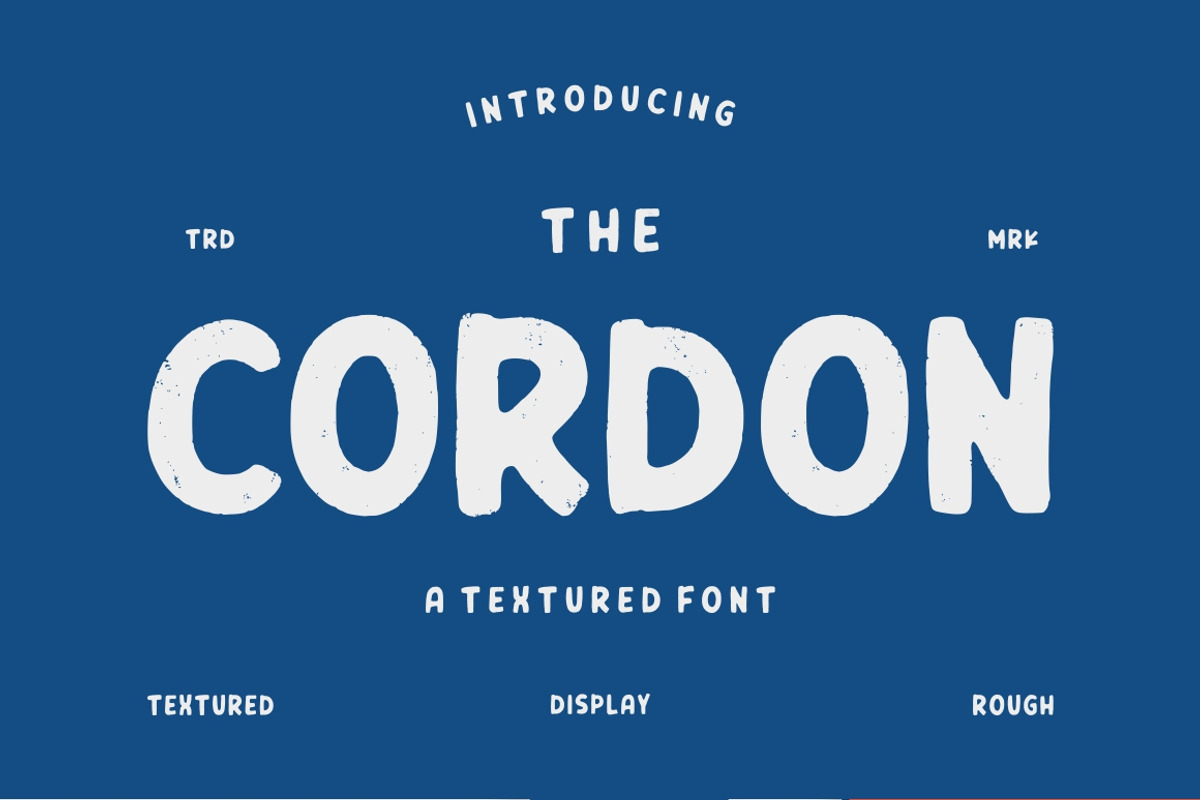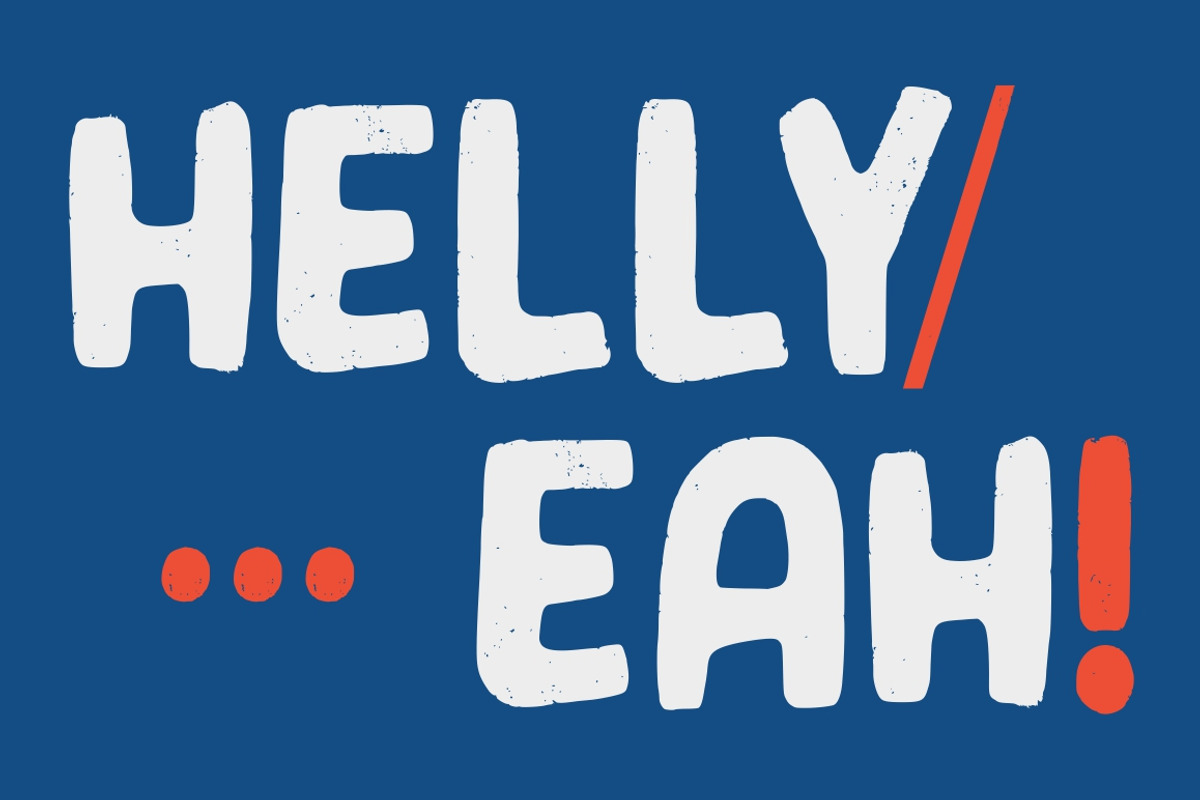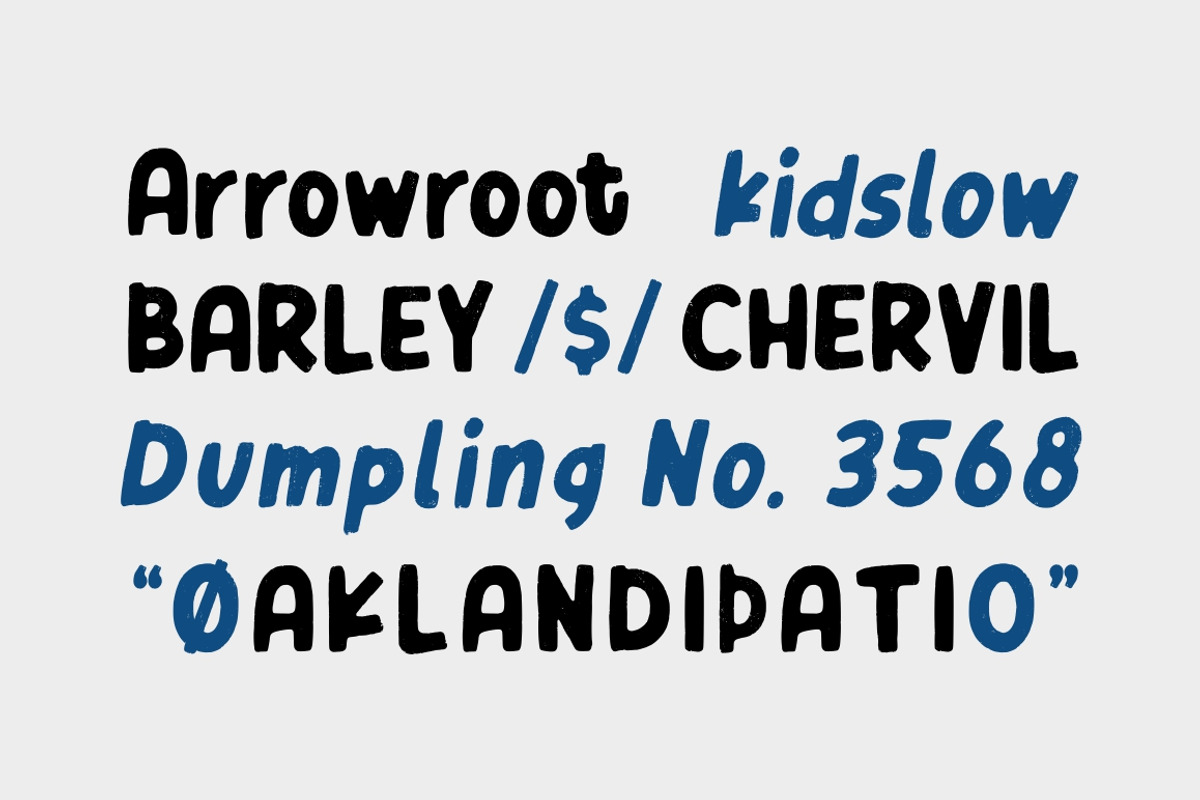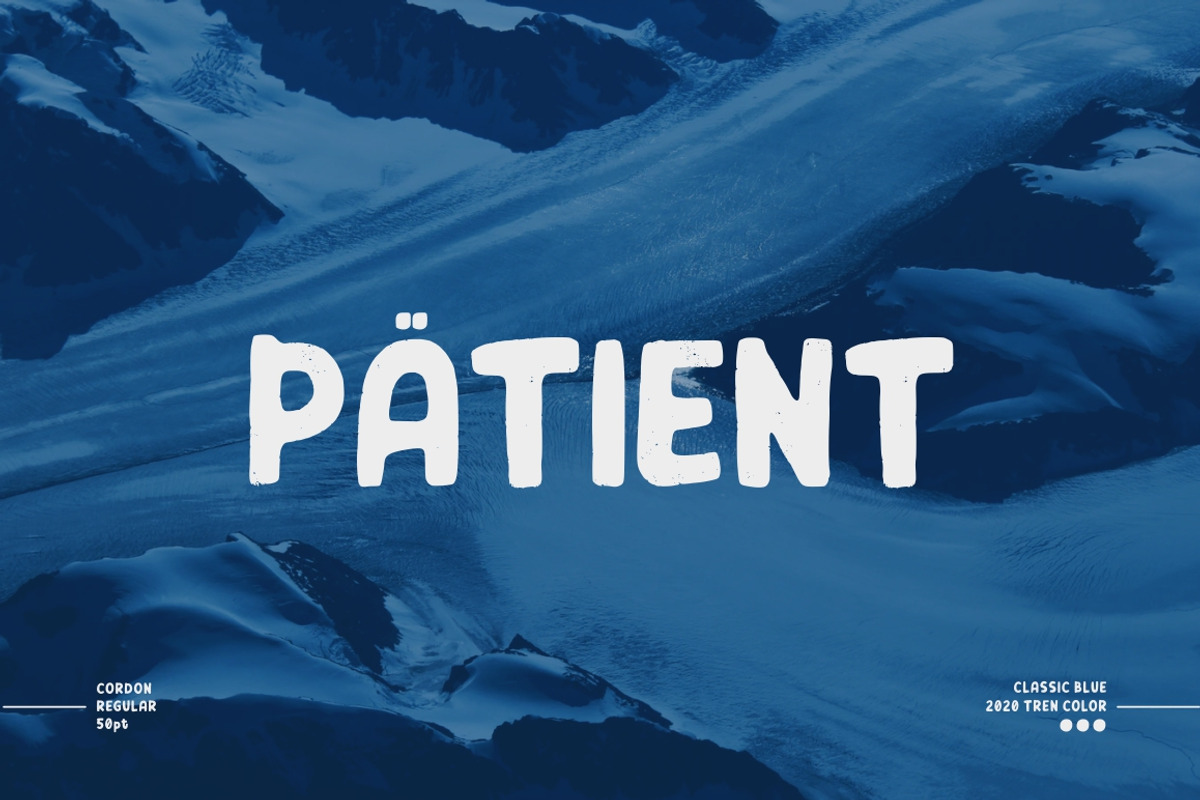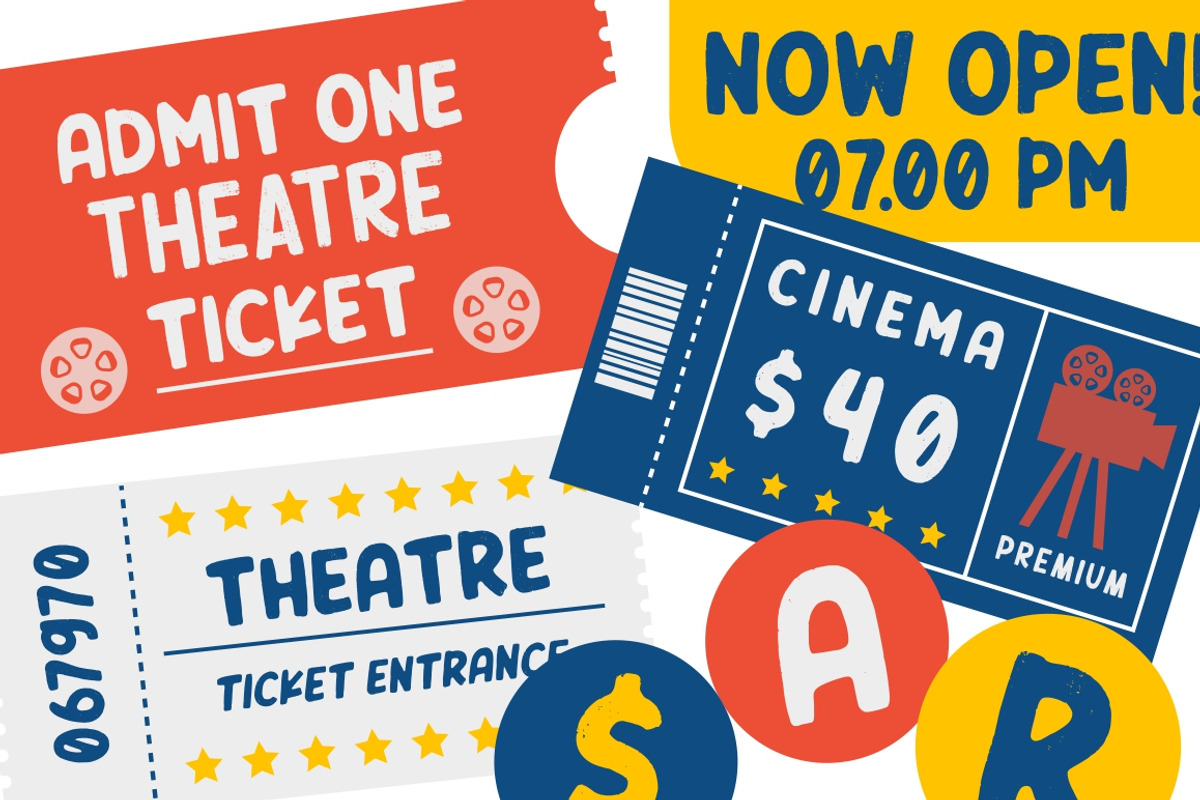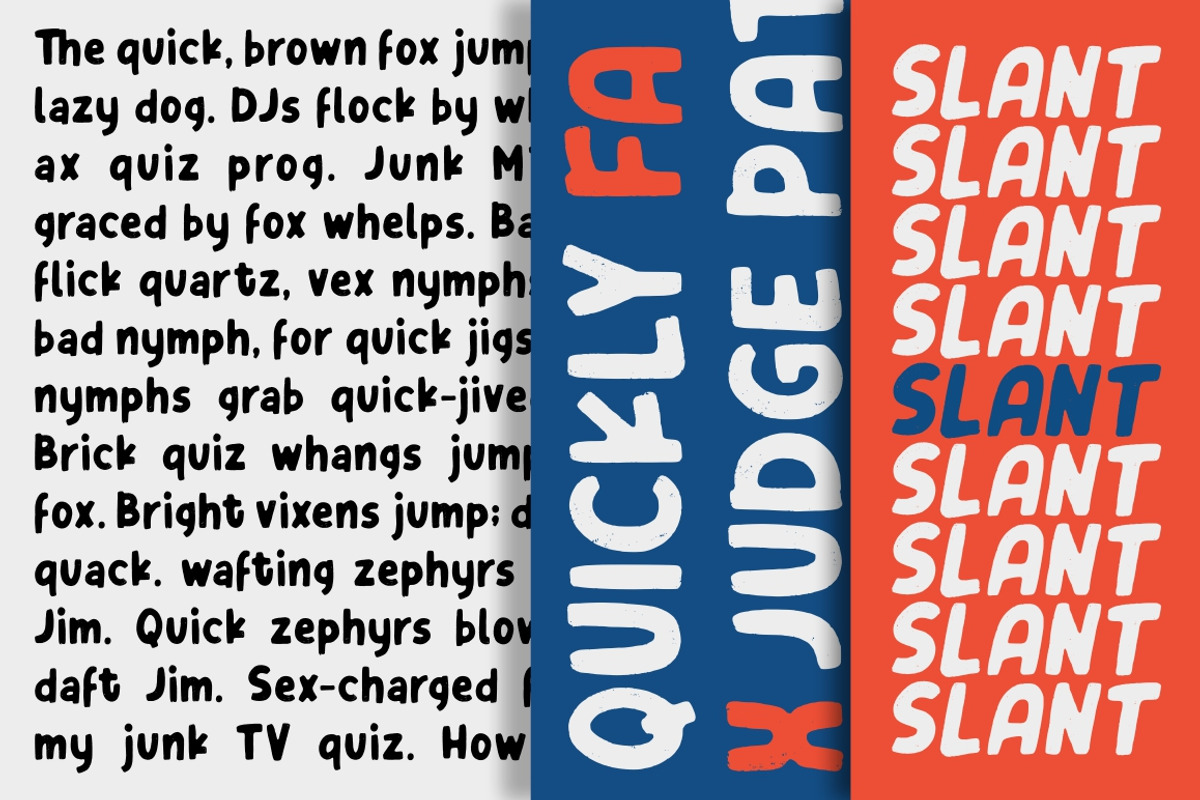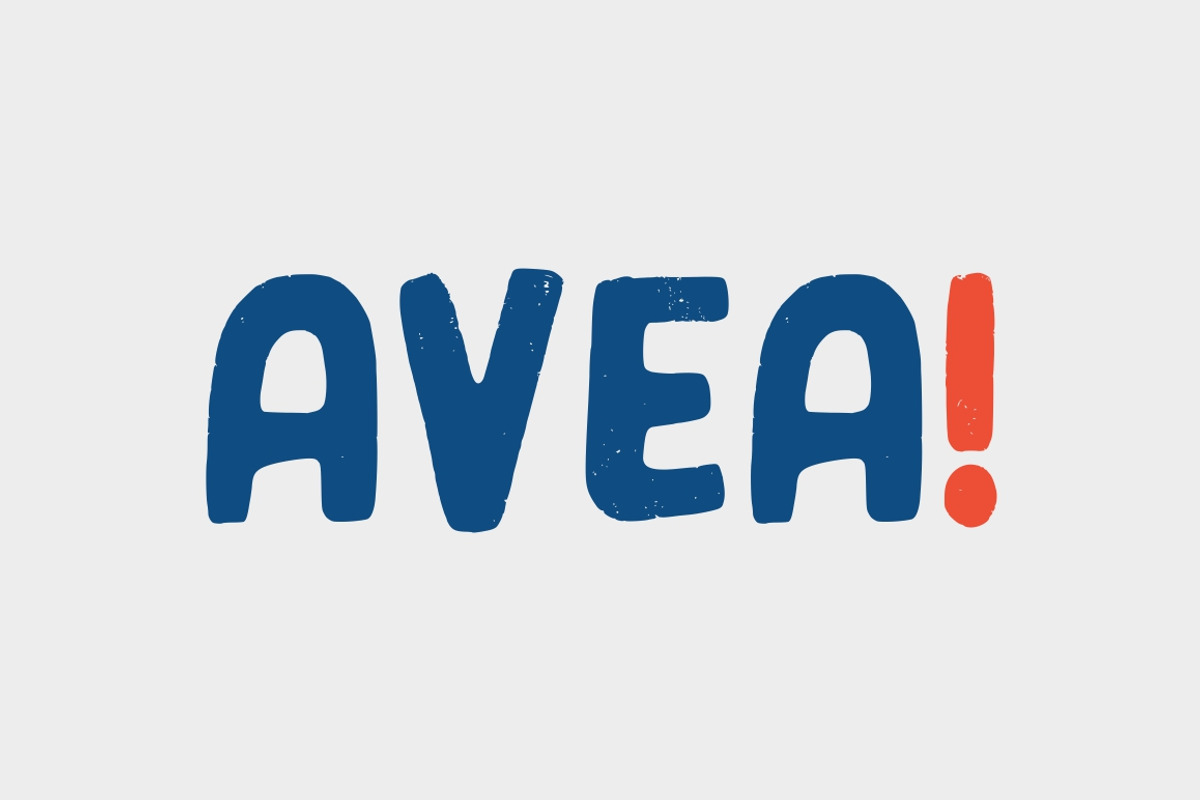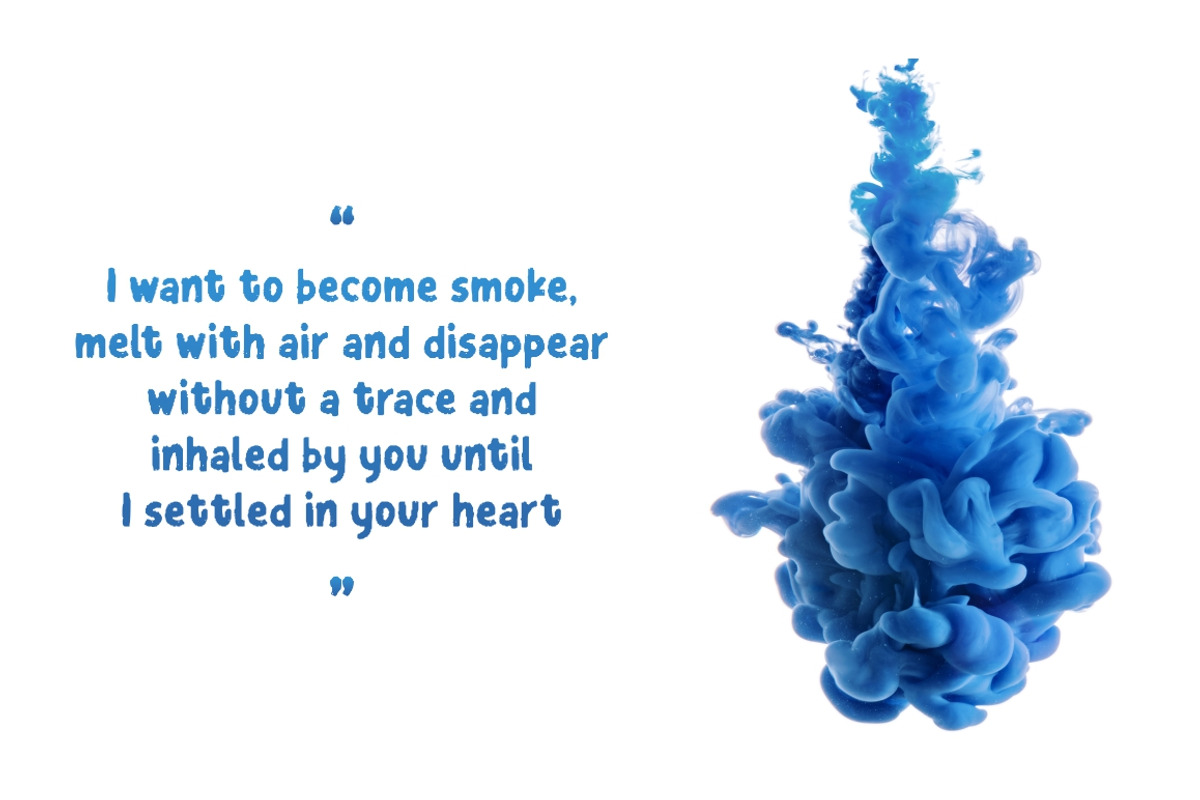
Cordon - Textured Font
Introducing Cordon - Textured Font
Cordon is born from original and hand-drawn style font. This font gives a feel of a vintage, classic, old, handmade looked like. Already PUA Encoded and I think this font is perfect for people looking for vintage aesthetic or hand-drawn logo. Suitable for any graphic designs such as branding materials, t-shirt, print, business cards, logo, poster, t-shirt, photography, quotes .etc.
Why Cordon - Textured Font is worth a look
Cordon - Textured Font by Garisman Std fits naturally into Branding, posters, packaging, typography.